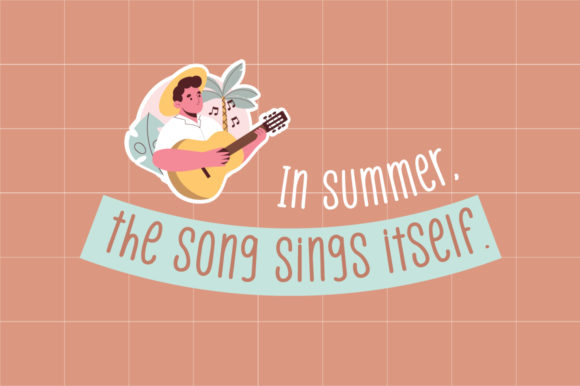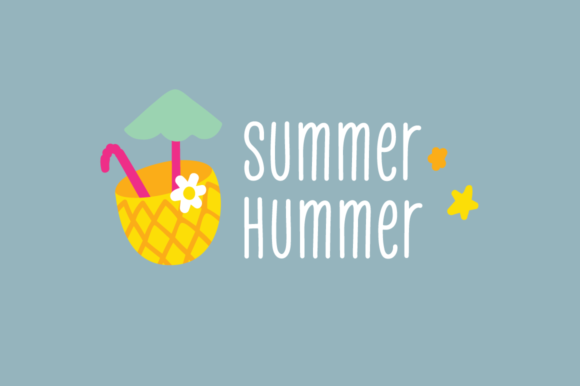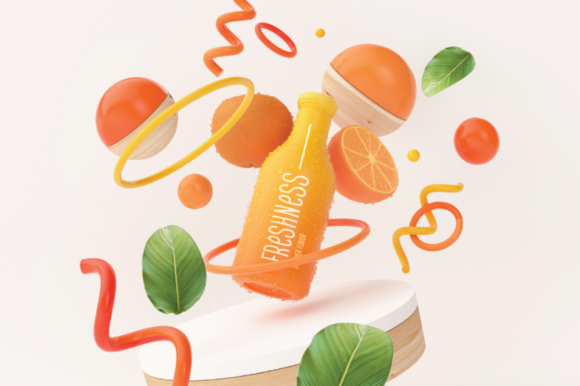
Introduction to Pana Summer Font
Pana Summer is a cool and delicate duo font (display and sans serif).
Simple but with a strong visual effect, this font will instantly make your creation more appealing than any others .
Pana Summer Font offers exceptional quality and versatility, making it a valuable addition to your design toolkit. Whether you’re creating for personal projects or commercial use, Pana Summer Font delivers professional results.